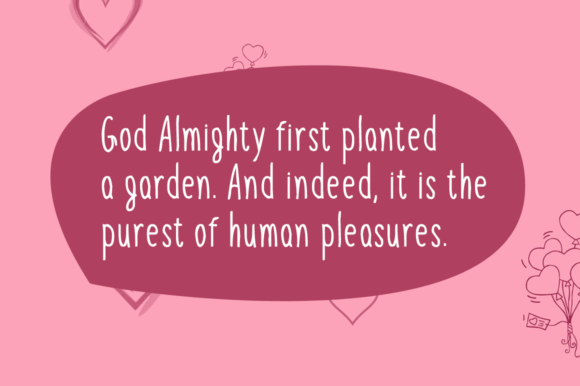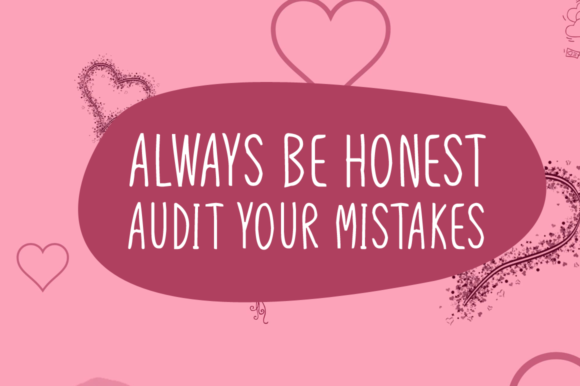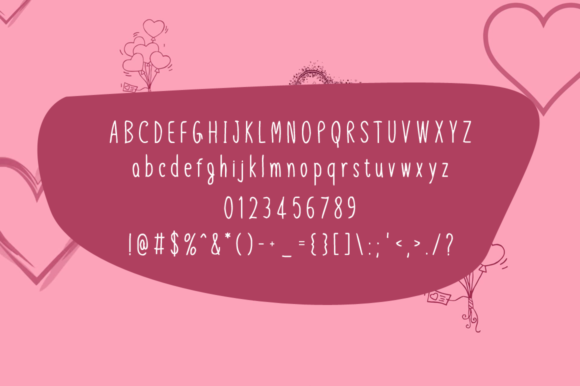
Introduction to Our Goal Font
Have you ever found yourself scribbling down ideas in a notebook, only to have your messy handwriting become the perfect inspiration for a design project? For designers, those fleeting moments of creativity can be a treasure trove of inspiration. And that’s exactly what Our Goal Font is all about – capturing the essence of handwritten charm and bringing it to life in a high-quality, display font.
Whether you’re working on a free download for a creative project or simply need a design resource that exudes romance and sophistication, Our Goal Font is the perfect choice. With its transparent background and elegant script, this font is sure to elevate any design project and leave a lasting impression on your audience.
As a valuable addition to any designer’s toolkit, Our Goal Font is a must-have for anyone looking to add a touch of personality and whimsy to their work.
Key Features of Our Goal Font
- High-quality typography with a clear and elegant design, perfect for creative projects.
- Comes with a transparent background, allowing for easy customization and versatility in design.
- Designed to be a comprehensive design resource, featuring a wide range of characters and glyphs.
- Features a large character set, including uppercase and lowercase letters, numbers, and special characters.
Honest Review: Our Goal Font
I recently stumbled upon Our Goal Font, a new design resource that caught my attention. As a designer, I’m always on the lookout for high-quality fonts to elevate my creative projects.
What works well about Our Goal Font is its clean and modern design. The font is highly legible, making it perfect for body text. The transparent background is also a nice touch, allowing me to easily place the font over different backgrounds.
- ✨ Highly legible and modern design
- ✨ Transparent background for easy placement
However, I did encounter a few limitations. The font is only available in a single weight, which may not be ideal for projects that require multiple font weights.
- ⚠️ Limited to a single font weight
- ⚠️ May not be suitable for projects with complex typography
Overall, I’m impressed with Our Goal Font. It’s a solid design resource that’s perfect for simple creative projects. While it may have some limitations, I think it’s a great addition to any designer’s toolkit.
Tips for Getting the Most Out of Our Goal Font
For optimal results, use Our Goal Font in conjunction with other design elements, such as images and graphics. Experiment with different font sizes and styles to add depth and visual interest to your design.
Our Goal Font is perfect for a variety of creative projects, including business presentations, marketing materials, and social media graphics. Its clean and modern design makes it an ideal choice for any high-quality design project.